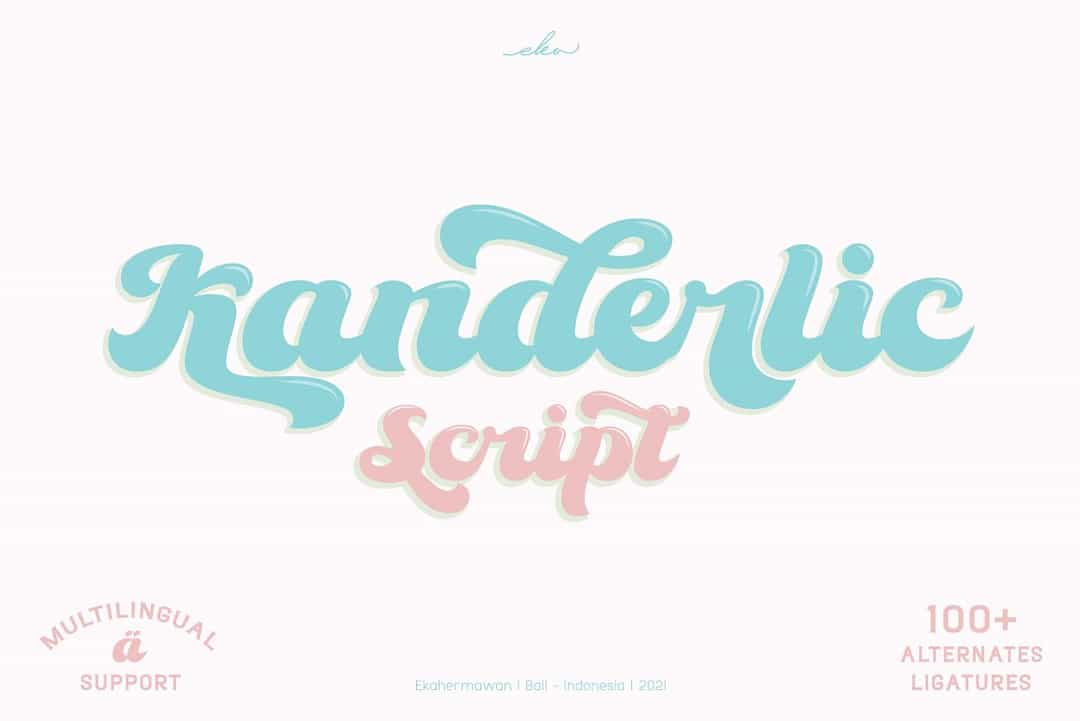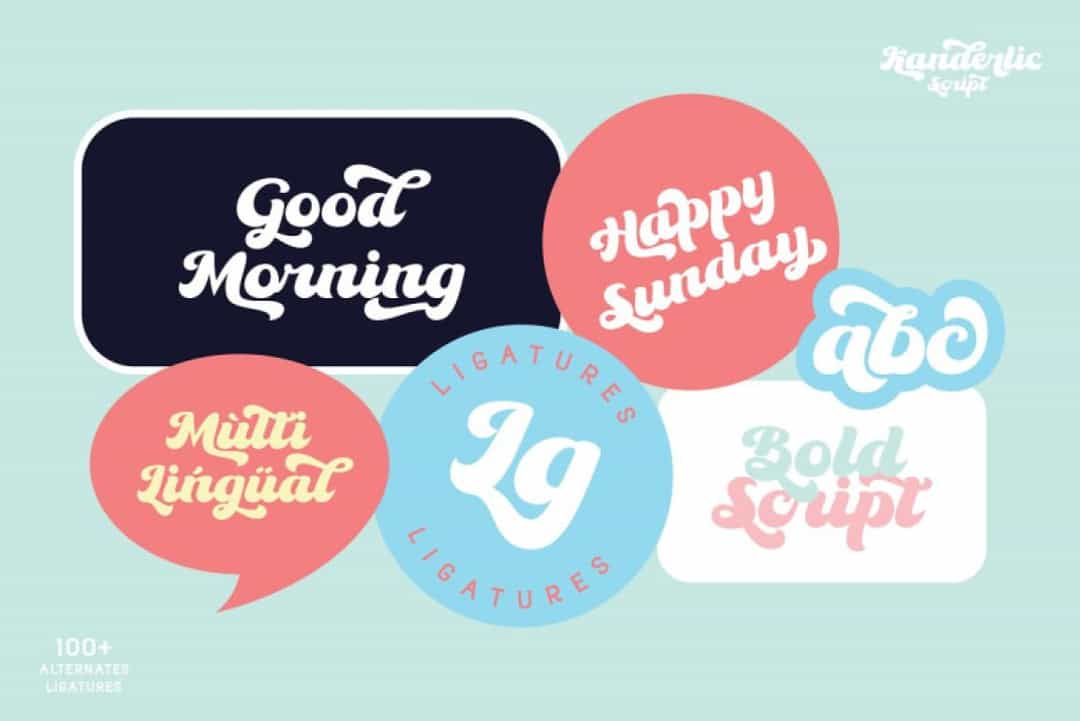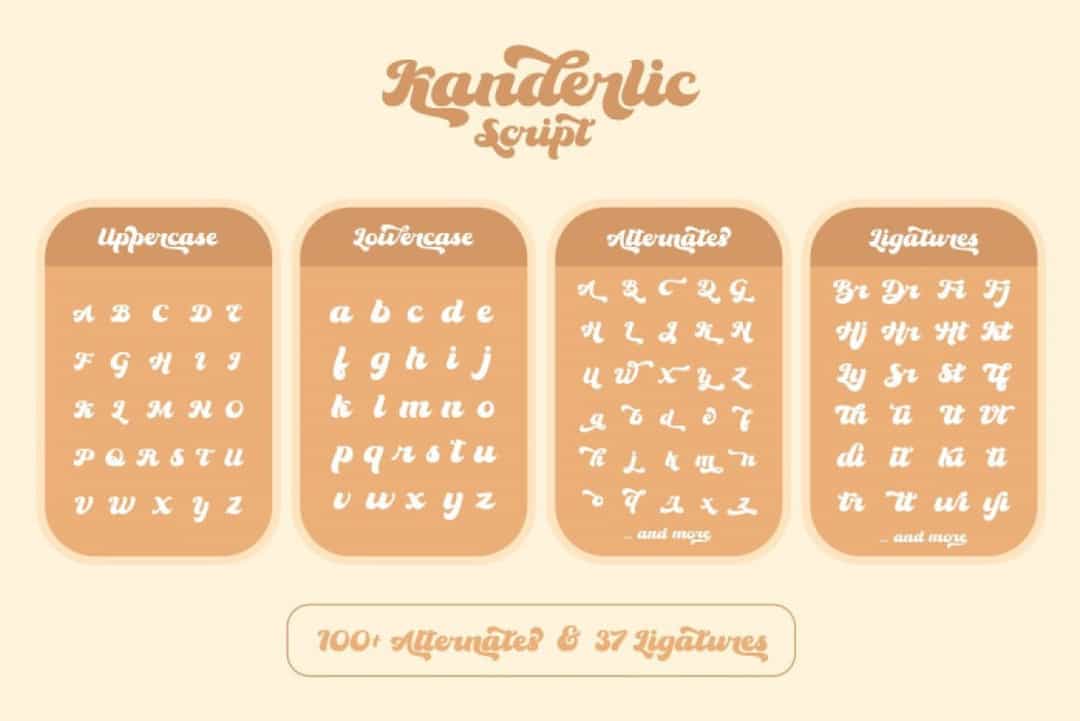
Discover The Kanderlic Font, part of the Retro Script collection—a versatile and unique font perfect for adding a personal touch to your projects. Download it for free and enjoy crafting designs with style, from invitations to social media posts. This font is available exclusively for personal use, giving you the freedom to create without limits. Unlock your creativity with The Kanderlic Font today!
Kanderlic is an elegant and timeless font suitable for any display, offering endless customization opportunities with its collection of characters (PUA encoded) and ligatures allowing for multiple typographic outcomes.